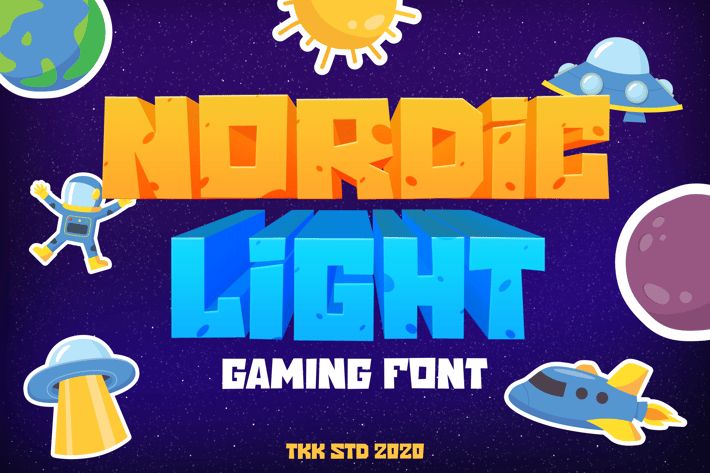
Nordic Light - Gaming Font
Nordic Light is a bold, futuristic cartoon gaming font crafted for digital storytelling and galactic adventures. With its geometric build, smooth edges, and tech-inspired block forms, it delivers playful clarity with a space-age spirit. The characters feature a slightly square silhouette, high contrast between shapes, and glowing visual presence—ideal for sci-fi themes and interactive design.
Whether you're launching an interstellar kids app, designing game titles, or crafting a STEM education poster, Nordic Light adds a modern, engaging tone that bridges tech and fun effortlessly.
The Nordic Light font thrives in gaming UI, kids’ YouTube content, sci-fi birthday invites, and educational robotics branding. Its bold stance and galactic glow bring curiosity and excitement to life—perfect for creators seeking attention-grabbing, readable titles with a digital, adventurous twist. It instantly resonates with children and teens drawn to space exploration and game-inspired aesthetics.
Key Features
✅ Game-Ready Display: Built for digital experiences—clear, bold, and futuristic.
✅ STEM-Friendly Feel: Ideal for coding classes, space events, and science branding.
✅ High-Impact Titles: Perfect for YouTube covers, posters, and mobile UIs.
✅ Youthful & Techy: Balances structure with a fun tone for younger audiences.